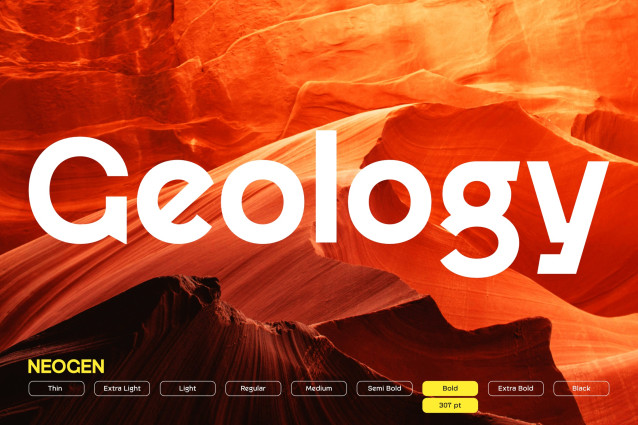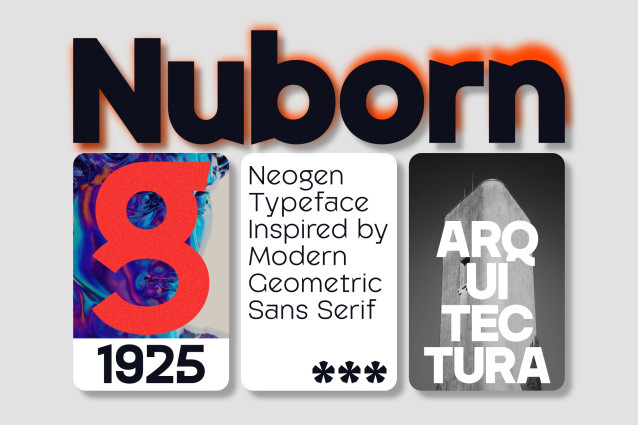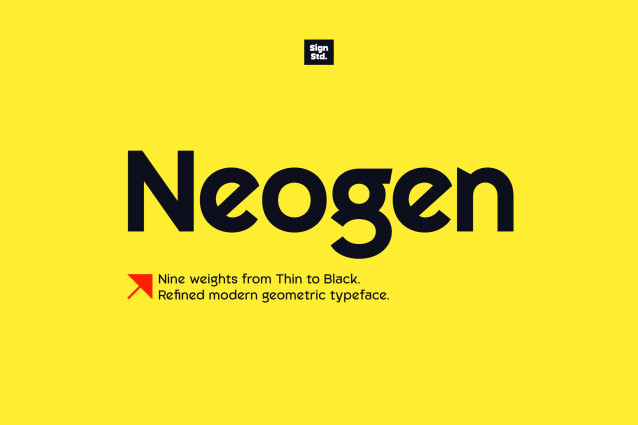
Neogen Black Font
Neogen Font is a contemporary sans-serif typeface engineered for clarity, versatility, and modern visual impact. Designed with a refined geometric structure and balanced proportions, it delivers a clean yet distinctive voice across a wide range of applications.
With a complete system of nine weights from Thin to Black, Neogen offers seamless flexibility for editorial layouts, branding systems, user interfaces, and digital environments. Each weight is carefully crafted to maintain consistency while expressing its own character—ranging from elegant minimalism in lighter styles to strong, commanding presence in heavier cuts.
Its sharp detailing, optimized spacing, and multilingual support make Neogen a reliable choice for designers seeking both aesthetic precision and functional performance. Whether used in large-scale headlines or compact text settings, Neogen adapts effortlessly while maintaining a cohesive and contemporary tone.